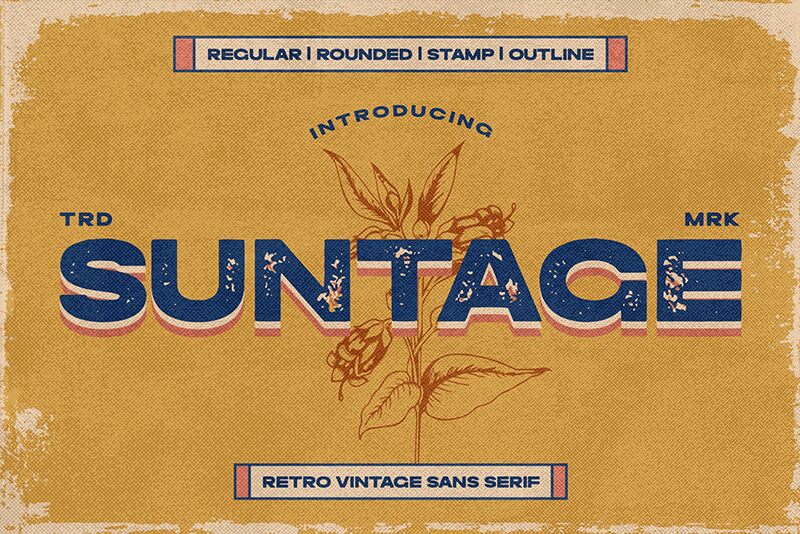
Suntage, crafted by Almarkhatype, is a striking sans serif typeface that commands attention with its bold presence and expansive form. Featuring wide characters, it exudes a sense of modernity and vibrancy, making it an ideal choice for contemporary design projects.
The unique visual appeal of Suntage lies in its ability to blend assertiveness with sophistication. Its robust letterforms create an impactful statement, perfect for headlines or branding elements that seek to stand out. Whether used in advertising posters, digital media, or corporate identities, this font enhances visibility while maintaining elegance.
With its distinctive style and versatility, Suntage is well-suited for applications ranging from eye-catching logos to engaging web content, leaving a memorable impression in any context it graces.